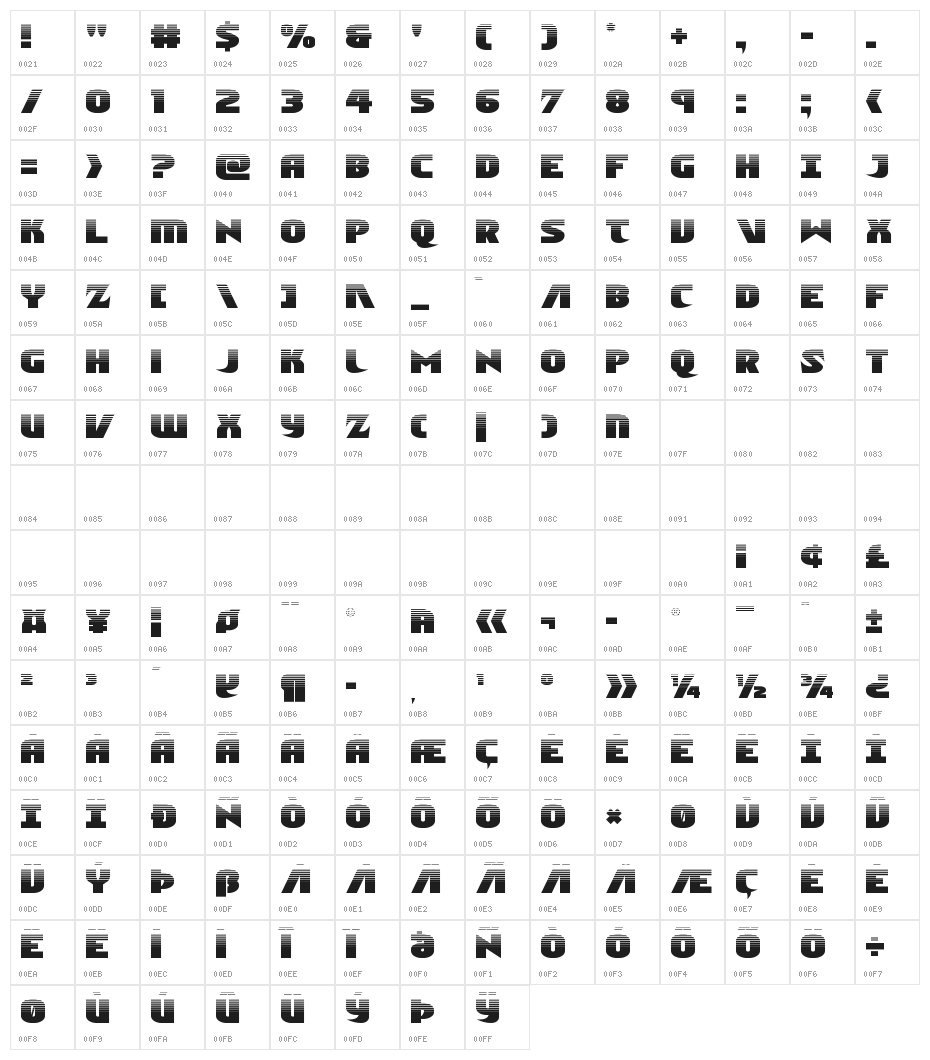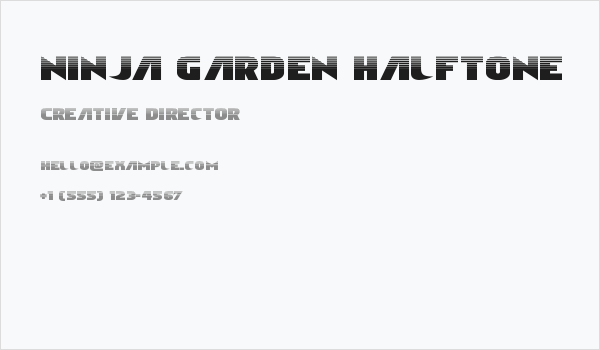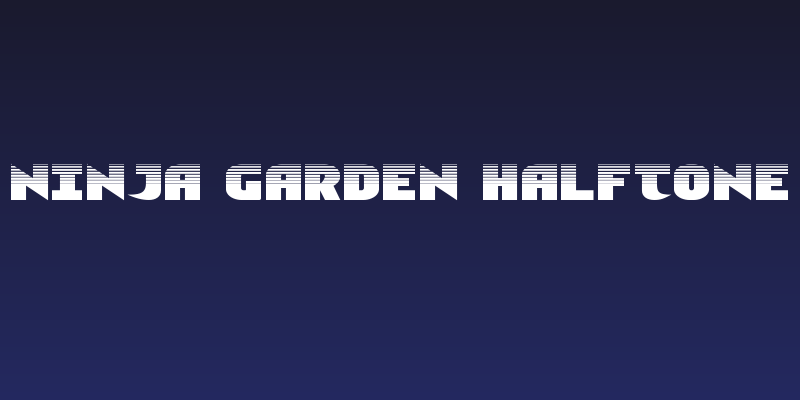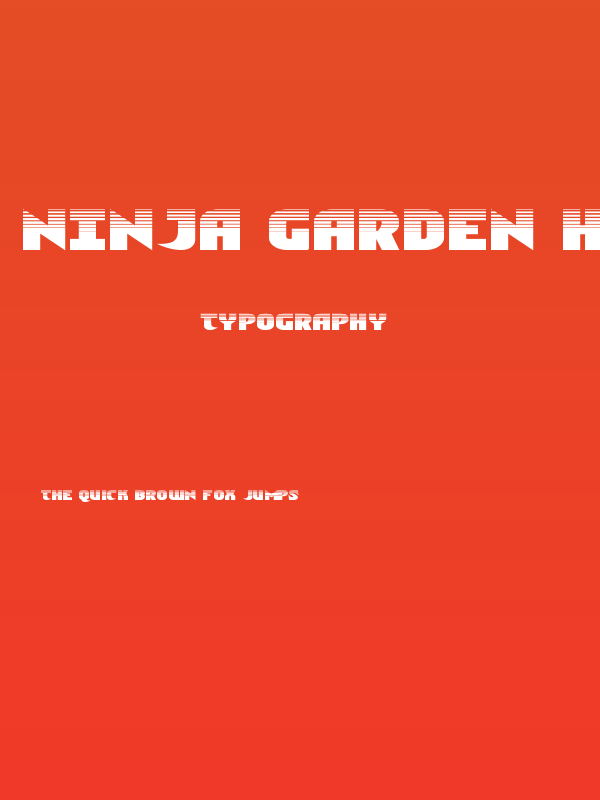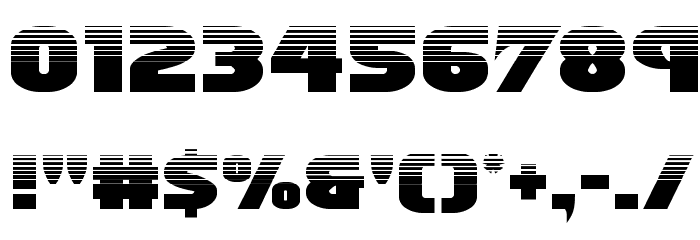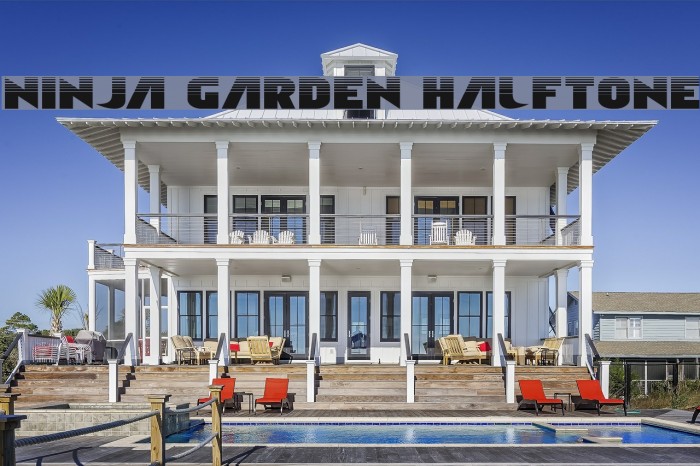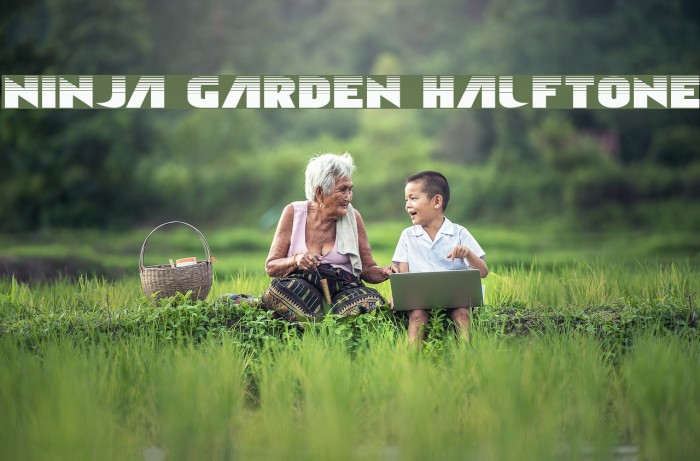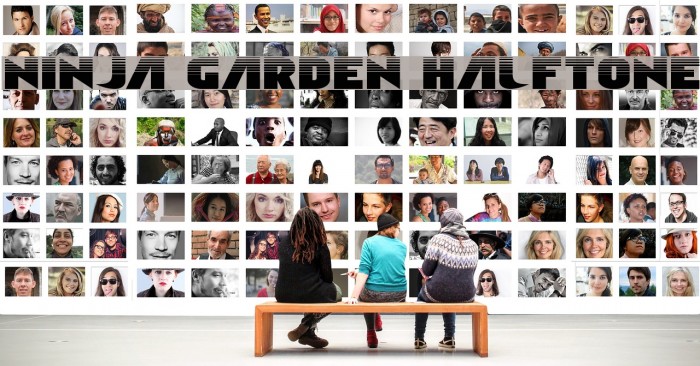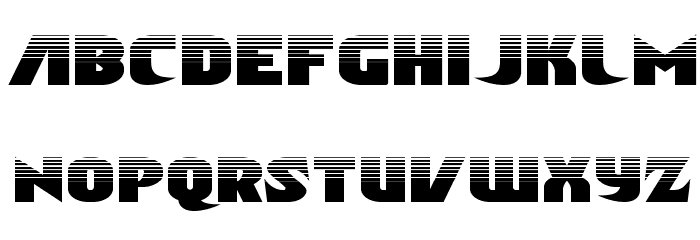
Ninja Garden Halftone Font
This font features a bold and striking design with a halftone effect that gives it a unique, textured appearance. The uppercase letters are robust and angular, with a distinct geometric style that is both modern and eye-catching. The lowercase letters maintain the same boldness, ensuring consistency throughout the typeface. Numbers and special characters are designed with the same halftone pattern, adding to the cohesive look. This font is perfect for making a statement in any design project, offering a dynamic and energetic feel.
| Proposed Projects | Ideal for posters, logos, video game graphics, and any project needing a bold, modern touch. |